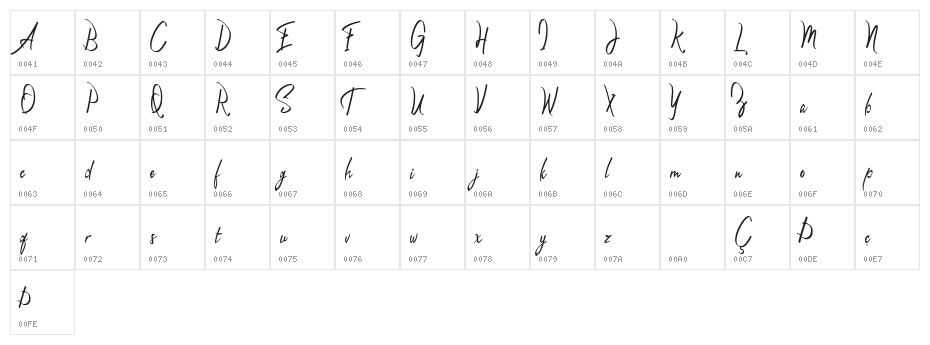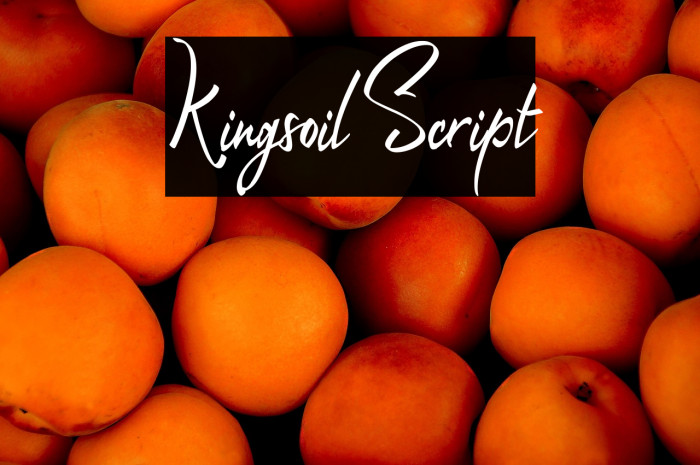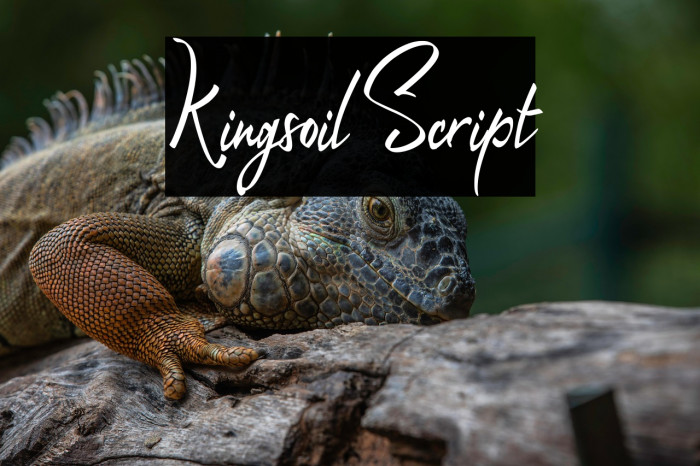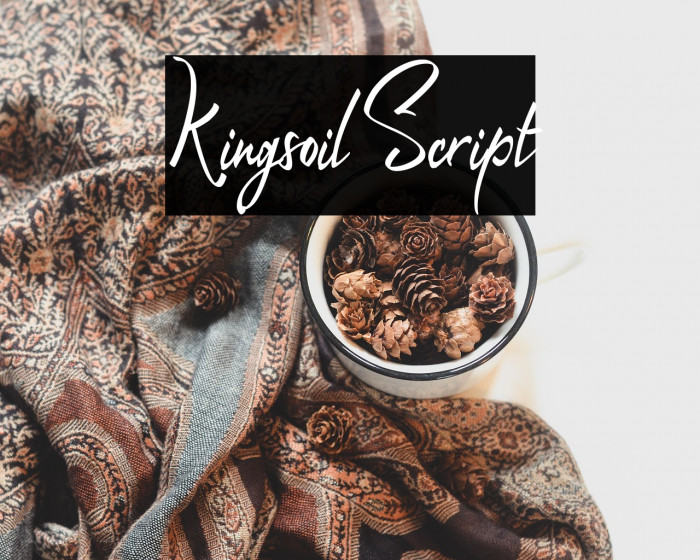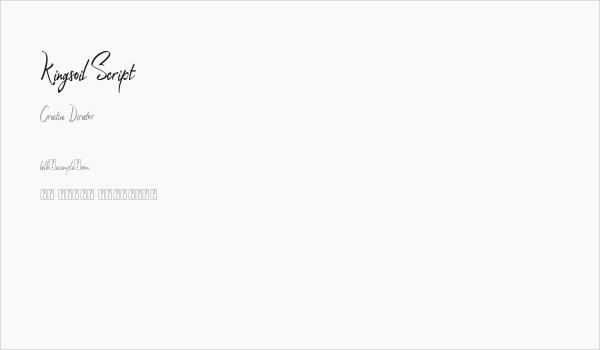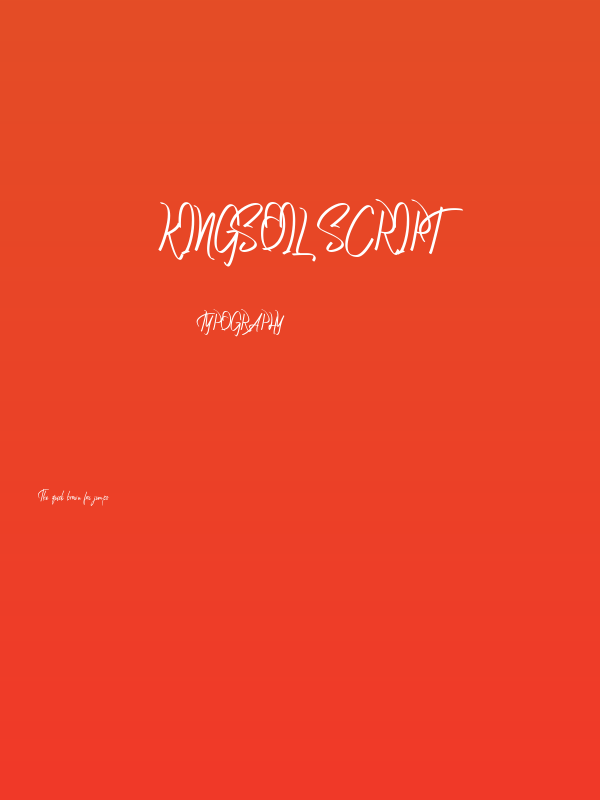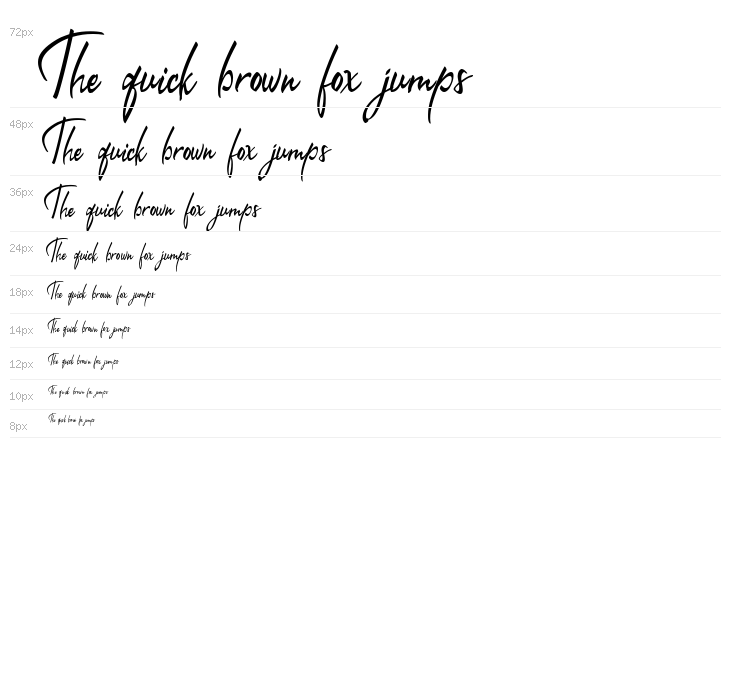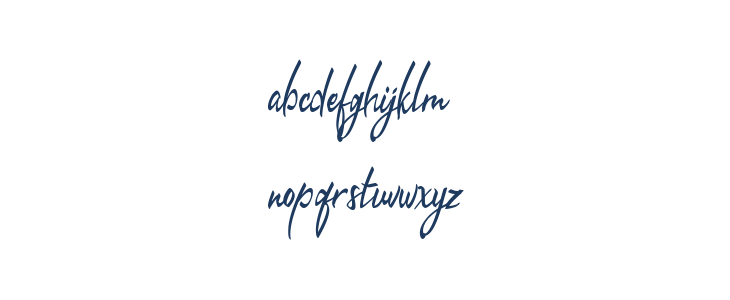
Kingsoil Script Font
Kingsoil Script Description
This font exudes a dynamic and expressive style, characterized by its flowing, cursive script that mimics the fluidity of handwriting. The letters are elegantly elongated with a slight slant, giving it a sense of motion and grace. The strokes vary in thickness, adding a lively contrast that enhances its visual appeal. The uppercase letters are bold and prominent, while the lowercase letters maintain a delicate and refined appearance. This font is ideal for projects that require a personal touch, such as invitations, greeting cards, or branding materials that aim to convey elegance and sophistication.
| Use Case | Logos, Headlines, Invitations |
| Proposed Projects | Ideal for invitations, greeting cards, branding, and elegant design projects. |